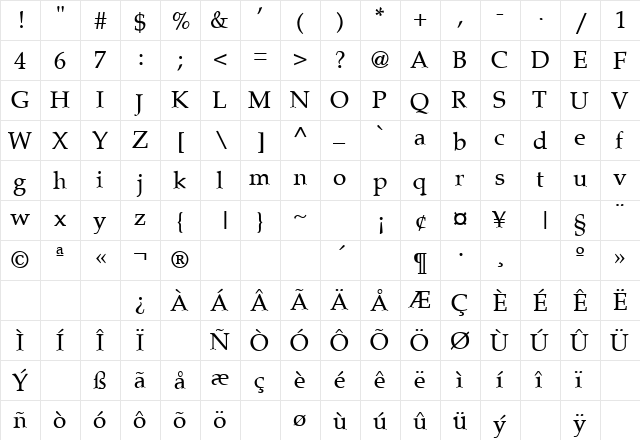
Palatine Normal
Design Context for Palatine Typeface
Palatine takes a measured approach to typography — its balanced proportions and neutral character make it a reliable workhorse for both digital and print work.